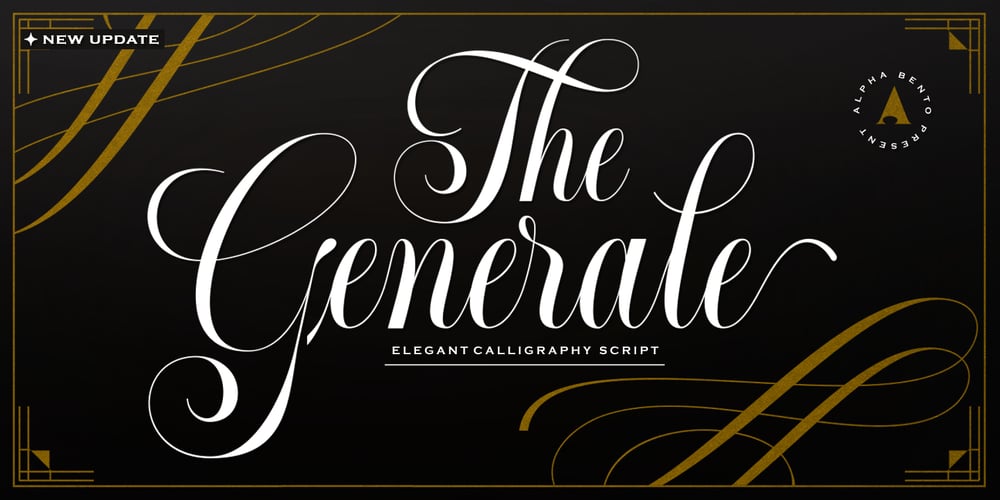
Generale Script
Generale Script font
Generale Script Font Family was designed by Rinaldi Novianda and published by Alpha Bento. Generale Script contains 4 styles and family package options. Generale Script is the font of choice for writing things that go beyond words. This font type is designed with high detail to deliver stylish elegance. So, it can be said, the character of the change is very beautiful, a kind of classical decorative copper script.Generale Script presents alternative variants of most letters, binders, and many calligraphy tips, ideal for elegant labels, high-end packaging, stationery, and compositions for certain brands, beautiful titling, verses, letters and short texts, which are intended to be read only with the eyes or intended to whisper into someone’s ear.Generale Script has 300+ glyphs and alternative characters, including various language support. With the OpenType feature with an alternative style and elegant binder. The OpenType feature does not function automatically, but you can access it manually and for the best results needed for your creativity in combining these Glyph variations.To enable the OpenType Stylistic alternates, you need a program that supports OpenType features such as Adobe Illustrator CS, Adobe Indesign & CorelDraw X6-X7, Microsoft Word 2010 or later versions. (Windows), Font Book (Mac) or a software program such as PopChar (for Windows and Mac).How to access all alternative characters using Adobe Illustrator:https://www.youtube.com/watch?v=XzwjMkbB-wQ How to use stylistic sets fonts in Microsoft Word 2010 or later versions:https://www.youtube.com/watch?v=NVJlZQ3EZU0 There are additional ways to access alternates / swashes, using the Character Map (Windows), Nexus Font (Windows) Font Book (Mac) or a software program such as PopChar (for Windows and Mac). How to access all the alternative characters, using the Windows Character Map with Photoshop:https://www.youtube.com/watch?v=Go9vacoYmBw If you need help or advice, please contact me. 🙂 Thank You,Alpha Bento